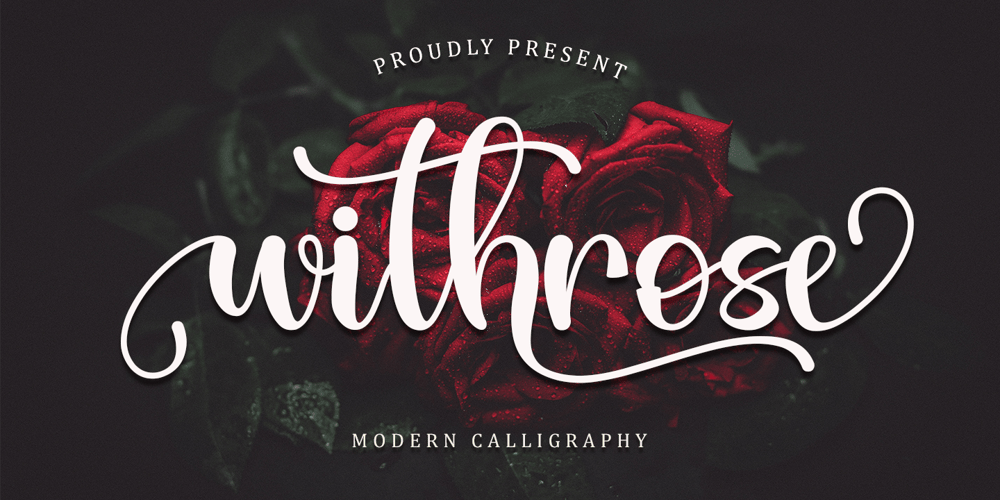
Withrose Font Family was designed by Alif Ryan Zulfikar and published by Sakha Design. Withrose contains 1 styles and family package options. Withrose is a romantic and elegant handwritten font. Its distinct and well rounded letters make this font a masterpiece. Fall in love with its incredibly versatile style and use it to create spectacular designs!Withrose is PUA encoded which means you can access all of the glyphs and swashes with ease!